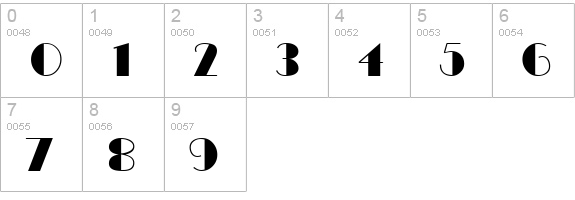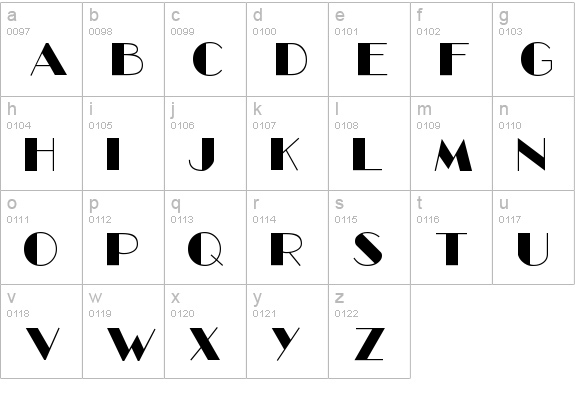
Introducing GLitzy font, a stunning display typeface designed to add a touch of glamour and sophistication to your projects. With its elegant curves and stylish swashes, GLitzy font is sure to make a statement and elevate your designs to the next level. Whether you're creating invitations, logos, or social media graphics, this font is the perfect choice to bring a touch of luxury to your work. What's even better? GLitzy font is available for free download at FontsMarket.com. Yes, you heard it right - you can access this exquisite font at no cost at all! Don't miss out on this amazing opportunity to enhance your designs with GLitzy font. Download it now and start creating with style and elegance.